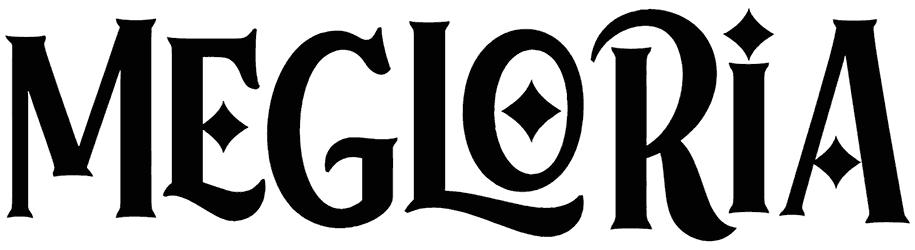
Embrace the essence of a fairytale book with a cover that is designed for that specific effect, with a magic font. Megloria is a gorgeous, groovy font that paints you a magical picture with calligraphy letters and starry elements.